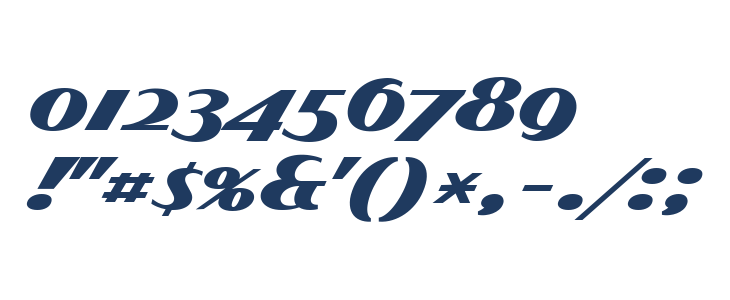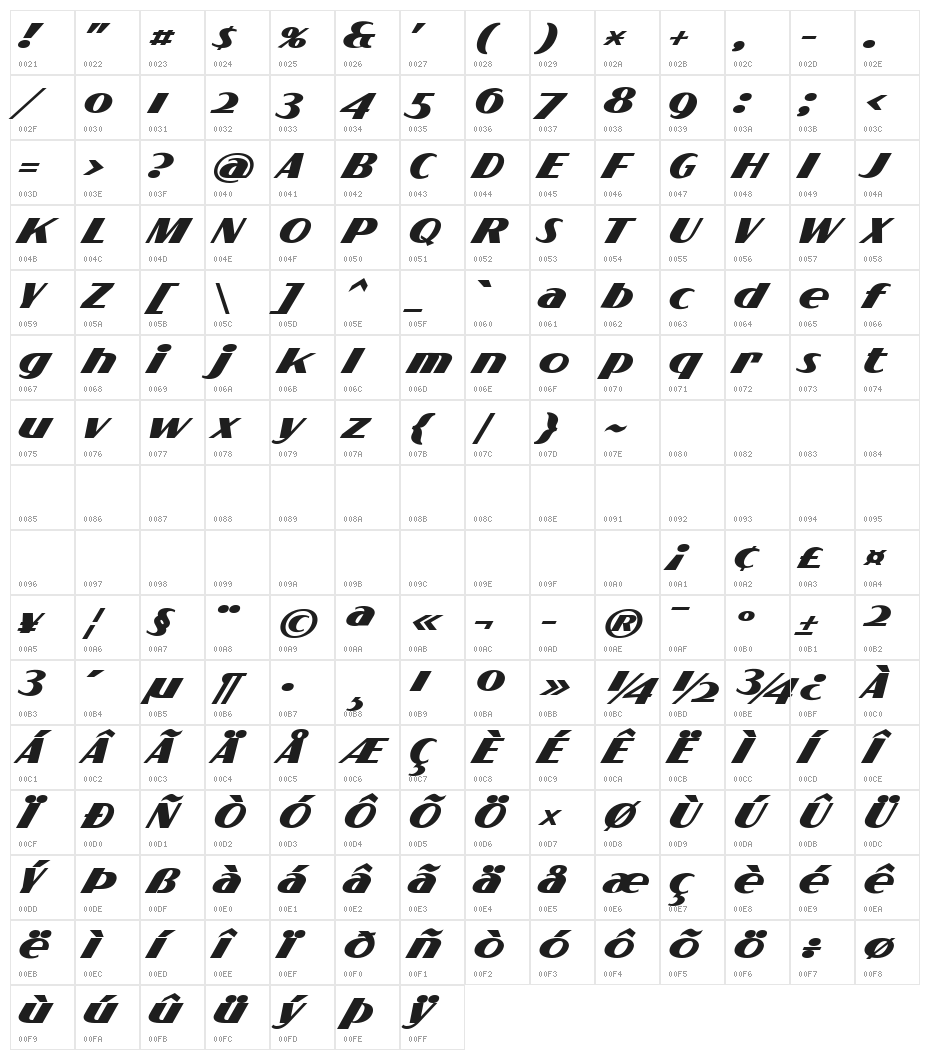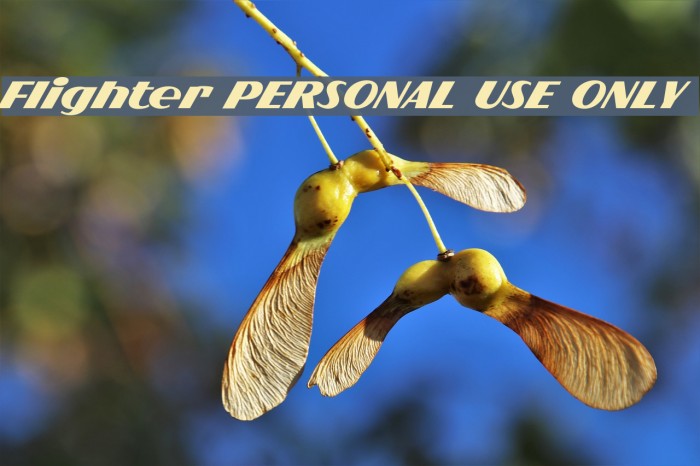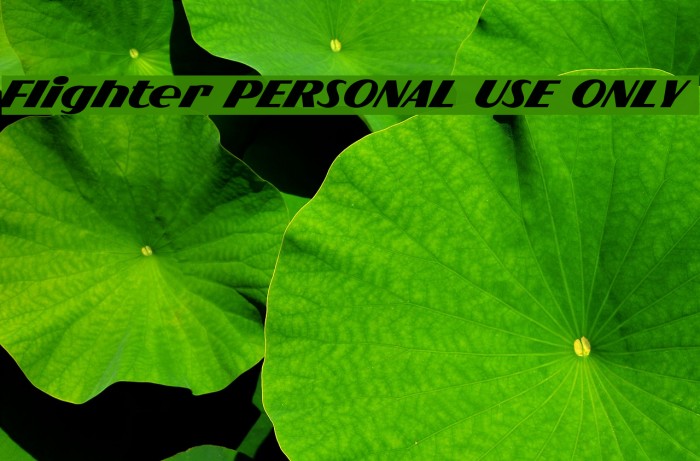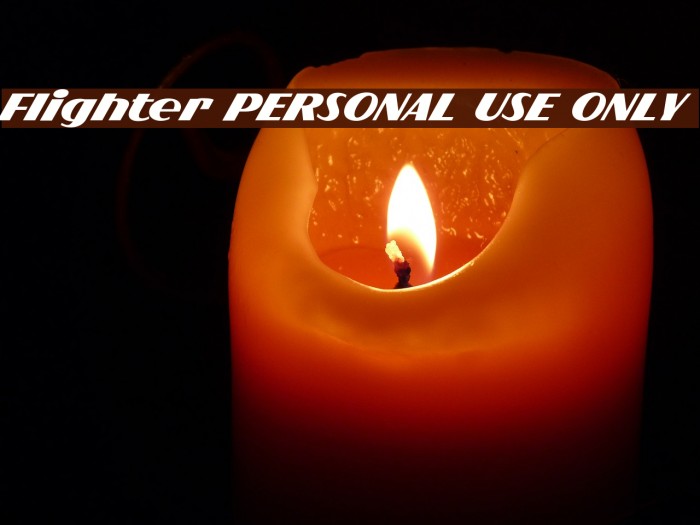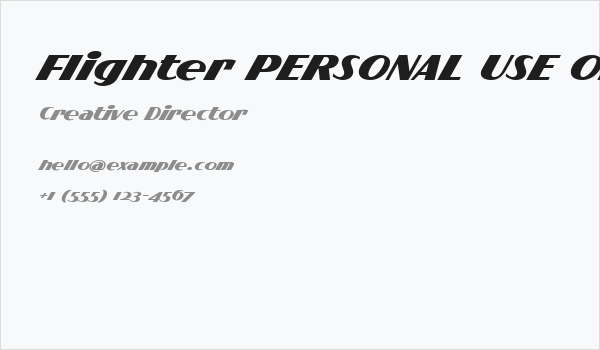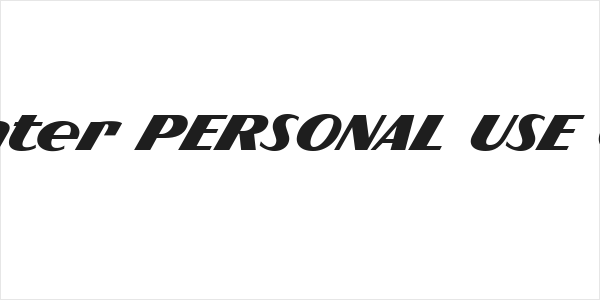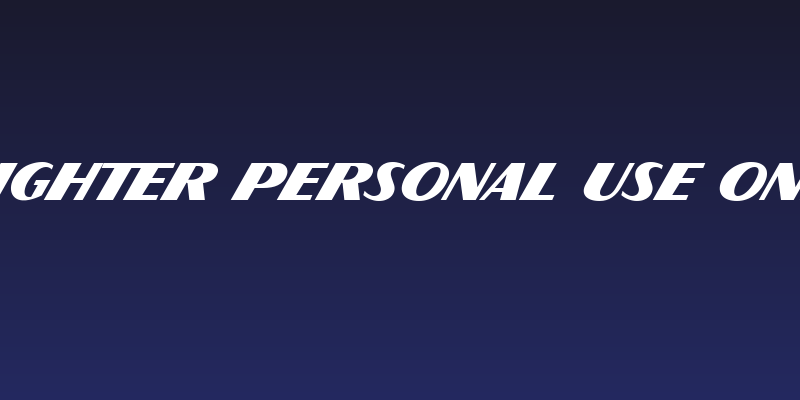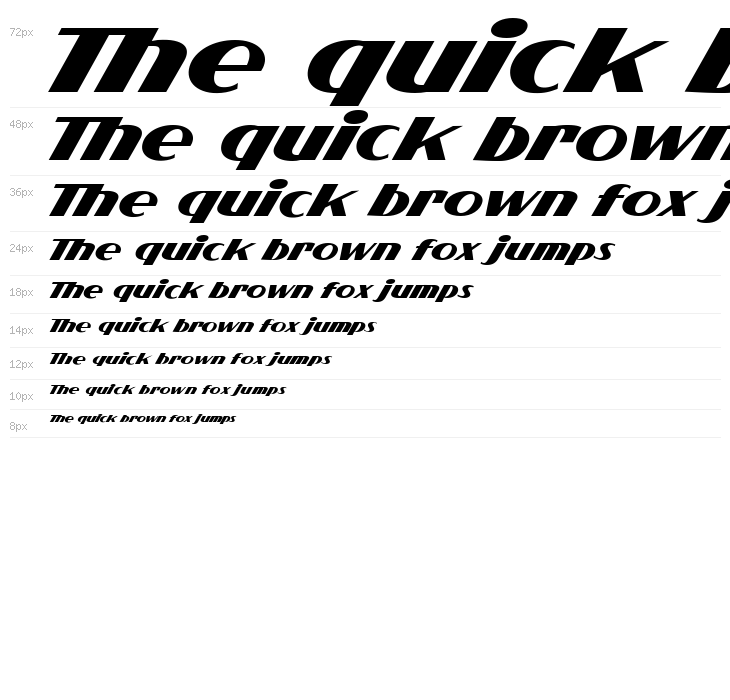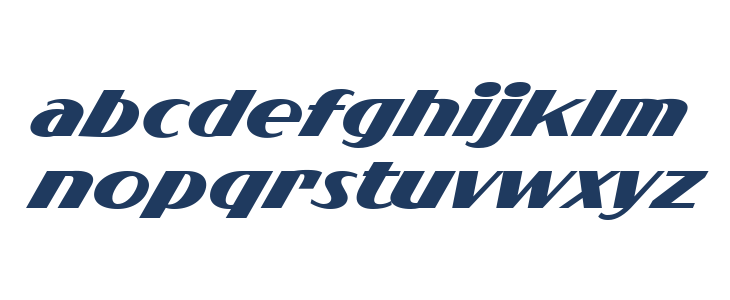
Flighter PERSONAL USE ONLY Font
Flighter PERSONAL USE ONLY Description
This font features a bold and dynamic style with a strong italic slant, giving it a sense of movement and energy. The characters are thick and robust, with sharp angles and a sleek design that enhances readability while maintaining a modern aesthetic. The uppercase and lowercase letters are consistent in style, with a slight variation in stroke width that adds visual interest. Numbers and special characters are equally bold, ensuring uniformity across all text elements. This font is ideal for making a statement, with its striking appearance and contemporary flair.
| Proposed Projects | Ideal for branding, advertising, headlines, and any project requiring a bold, modern look. |